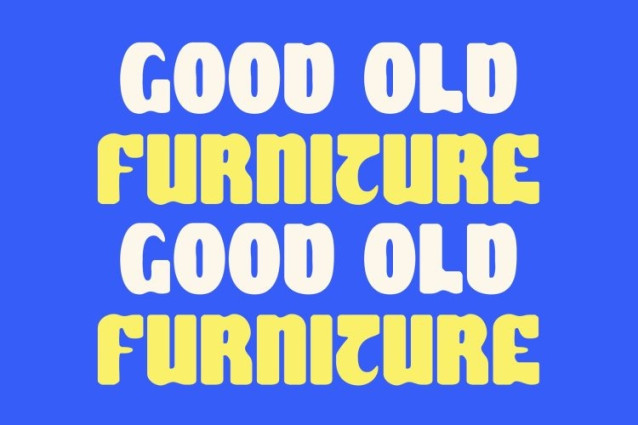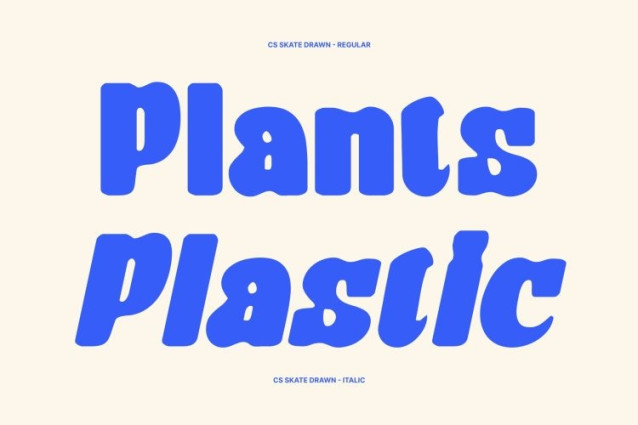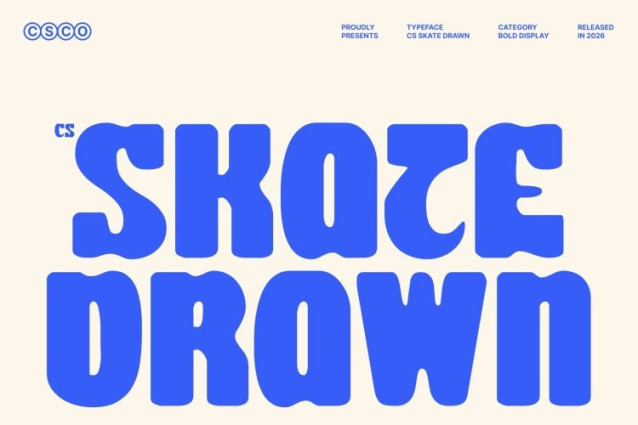
CS Skate Drawn Font
CS Skate Drawn Font This is a striking display font that merges modern sans serif strength with the flowing beauty of Art Nouveau. Its hand-drawn texture gives each letter a lively, dynamic quality, adding personality and movement to bold typographic statements. The combination of structure and artistry ensures your text feels both commanding and graceful.
Fluid Curves with Artistic Expression
Inspired by Art Nouveau aesthetics, the font features smooth, organic curves that bring a flowing elegance to geometric forms. The drawn effect adds subtle irregularities and handcrafted charm, giving each character a unique personality. This balance of precision and artistic imperfection makes the font feel alive, dynamic, and visually engaging.
Perfect for Large-Scale Statements
Whether for editorial headlines, posters, or branding projects, this font excels at creating bold visual impact. Its distinctive hand-drawn texture ensures every letter pops while maintaining readability. The font transforms simple layouts into eye-catching designs with motion, depth, and expressive flair.
Versatile for Creative Projects
Despite its bold presence, this font adapts beautifully to a variety of design contexts from fashion branding and modern editorial to expressive display typography. Its combination of elegance, movement, and hand-crafted artistry makes it ideal for designers who want to elevate their work with a stylish, dynamic, and memorable font.